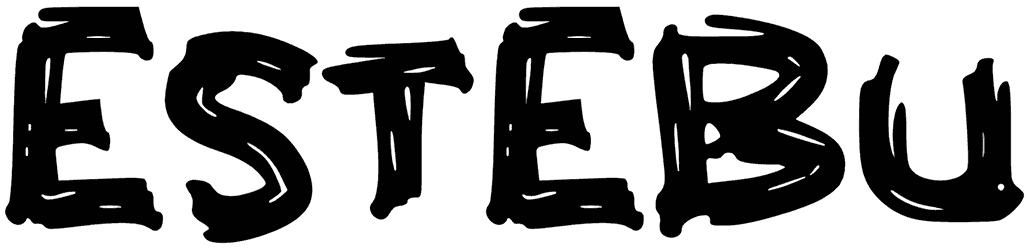
e Estebu Font
If you’re looking for a unique scribble font that will really help your work stand out, go no further than e Estebu font. If you want your creative work, such as banners, logos, headlines, and other types of text, to make a statement, the font e Estebu is the one you should choose. Why hold off? Get it from RB’s trash font family and go to infinity and beyond with your creations right now!